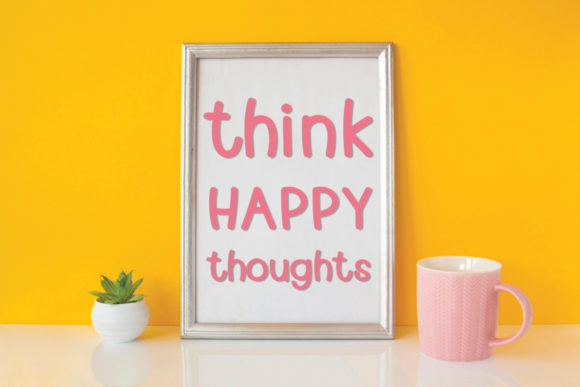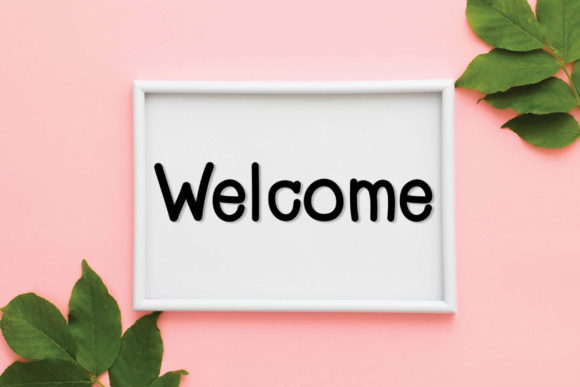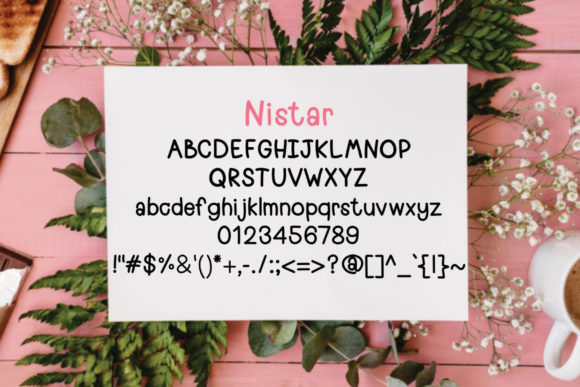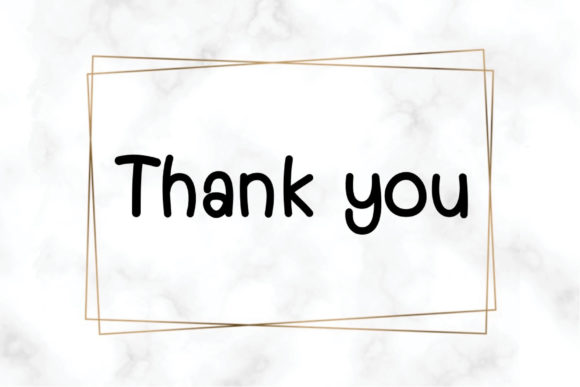
Introduction to Nistar Font
Have you ever stumbled upon a beautiful handwritten note in a coffee shop, and instantly felt inspired to create something of your own? That’s exactly what happened to me, and it sparked a passion for unique design resources like the Nistar Font. This stunning pairing of a brush pen and pencil results in a truly endearing and authentic look that will elevate any DIY project to the next level.
As a designer, I can attest to the value of having high-quality, free design resources at our fingertips. The Nistar Font is a game-changer, offering a transparent background that makes it easy to integrate into any creative project. Whether you’re working on a personal or professional project, this gorgeous handwritten font is sure to bring a touch of personality and whimsy to your design.
With the Nistar Font, the possibilities are endless, and we’re excited to share this valuable design resource with you. So, let’s dive in and explore the world of this incredible font, and discover how it can help bring your creative project to life!
Key Features of Nistar Font
- Unique, modern font style with a transparent background, ideal for digital designs.
- Designed for use in various creative projects, including graphic design, web design, and digital art.
Honest Review: Nistar Font
I recently had the chance to work with the Nistar Font, and I must say it’s been a game-changer for my creative project. The font is available for a free download, making it a fantastic design resource for designers and artists on a budget.
What works well with the Nistar Font is its high quality and versatility. It has a unique style that can be used for a variety of projects, from elegant invitations to modern branding materials. The font also supports a transparent background, making it easy to use with different design elements.
Here are some of the features that I love about the Nistar Font:
- High quality design that looks professional and sleek
- Unique style that can be used for a variety of projects
- Supports transparent background for easy design integration
However, there are some limitations to the Nistar Font that I want to mention:
- Some users may find the font too bold or overwhelming for certain projects
Overall, I’m really impressed with the Nistar Font and would highly recommend it to anyone looking for a high-quality design resource. With its unique style and versatile use, it’s a great addition to any designer’s toolkit.
Common Use Cases for Nistar Font
The Nistar Font is ideal for a variety of creative projects, including graphic design, digital art, and typography. Its high-quality design and transparent background make it perfect for use in presentations, documents, and digital media.